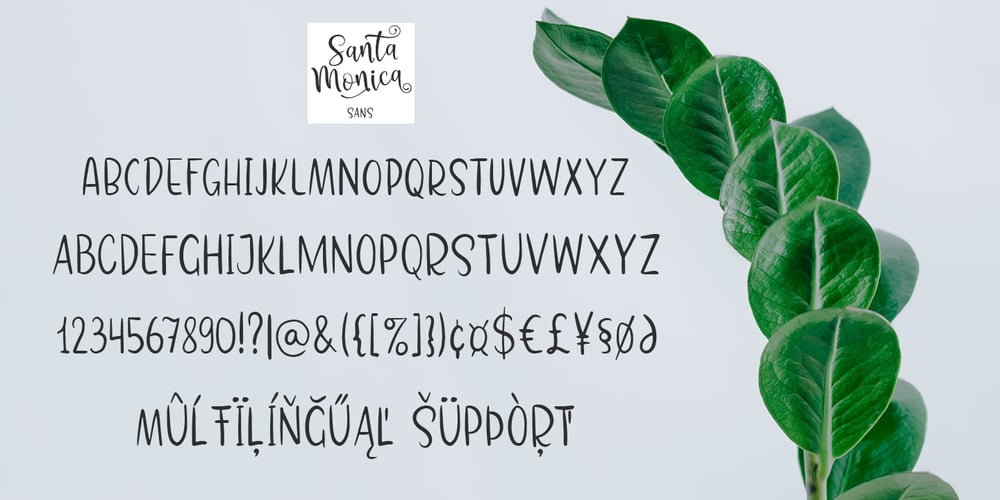
Santa Monica Font Family was designed by Pavel Larin and published by Larin Type Co. Santa Monica contains 2 styles and family package options. Santa Monica – a modern calligraphy font duo. Inspired by modern calligraphy, this font duo will suit any of your projects, with the help of many alternatives that you can choose, as well font sans serifs, the design of your project will look individual and unique. Enjoy using!